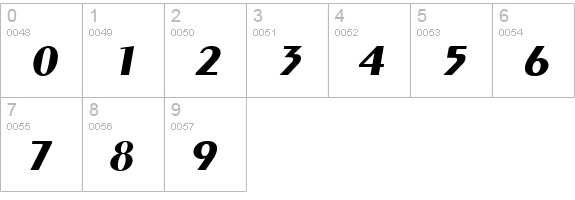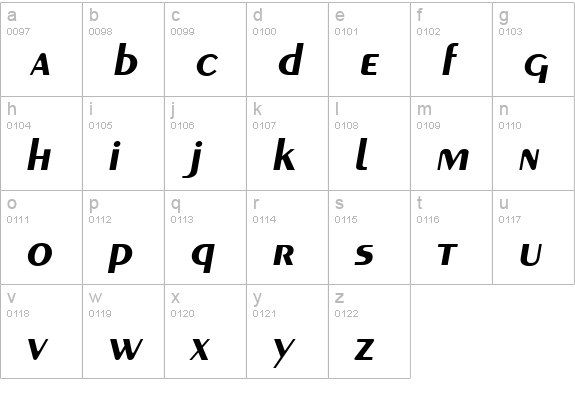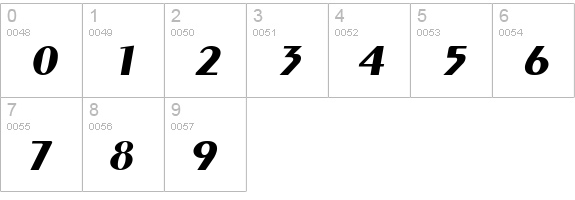
Introducing Greyhound-BoldItalic font - a sleek and modern typeface that exudes elegance and sophistication. The bold and italic styling of Greyhound adds a touch of flair to any design project, making it perfect for headlines, logos, and other creative endeavors. With its clean lines and refined appearance, Greyhound-BoldItalic is sure to make a statement. What's even better is that Greyhound-BoldItalic is available for free download at FontsMarket.com. Yes, you read that right - this stunning font can be yours at no cost, allowing you to enhance your projects without breaking the bank. Don't miss out on the opportunity to add Greyhound-BoldItalic to your font collection and elevate your designs to the next level. Download it now and let your creativity shine with this exceptional typeface.